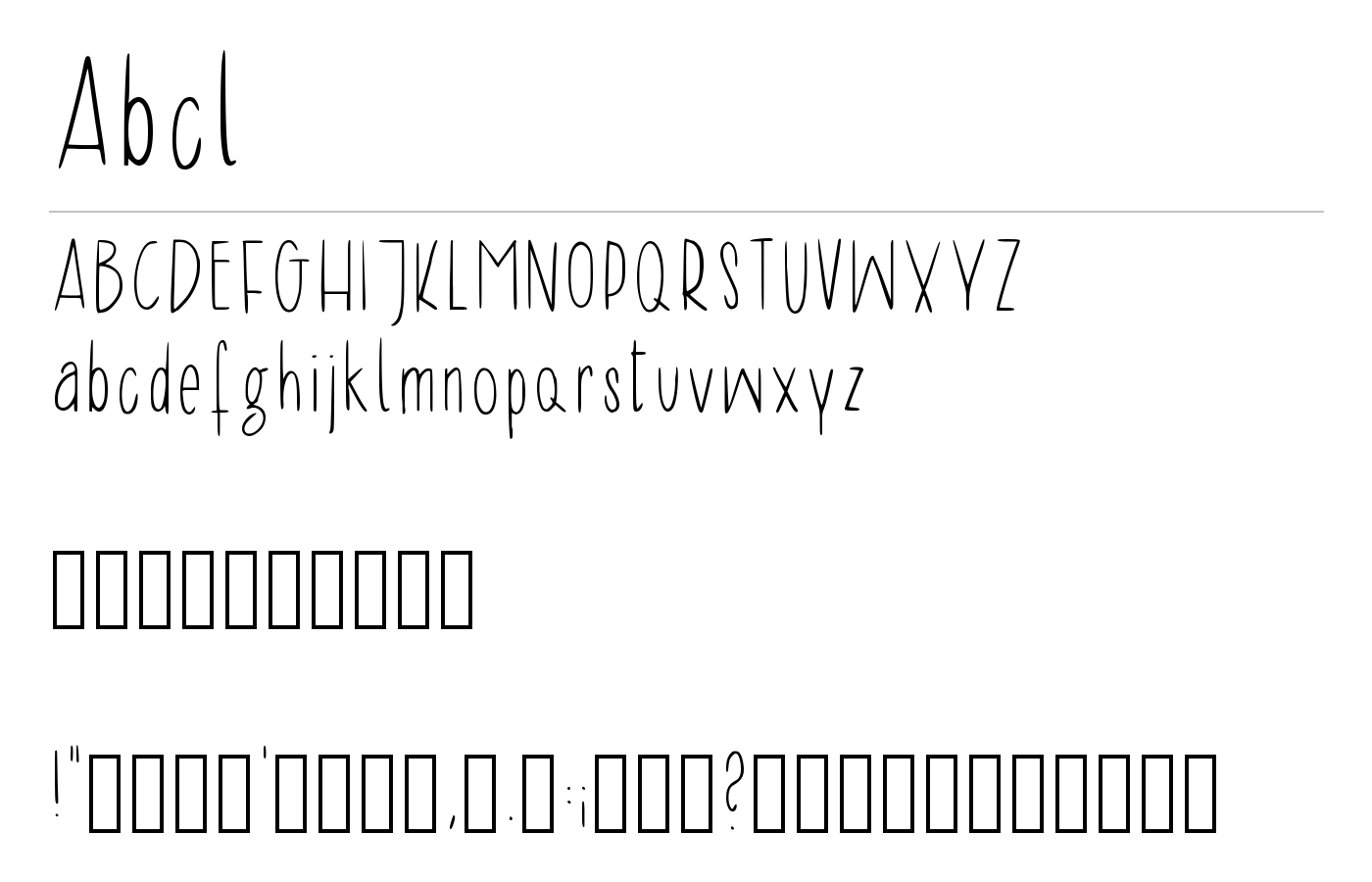
Abcl Font is a slender, tall sans serif typeface with a playful, hand-drawn appearance that combines light strokes and irregular letterforms for a casual, friendly feel. Its narrow proportions and quirky character shapes make it ideal for creative projects, informal branding, and editorial headlines where a unique, approachable style is desired. This font works well to convey personality and charm, especially in designs that aim to be inviting and distinctive.
Abcl Font